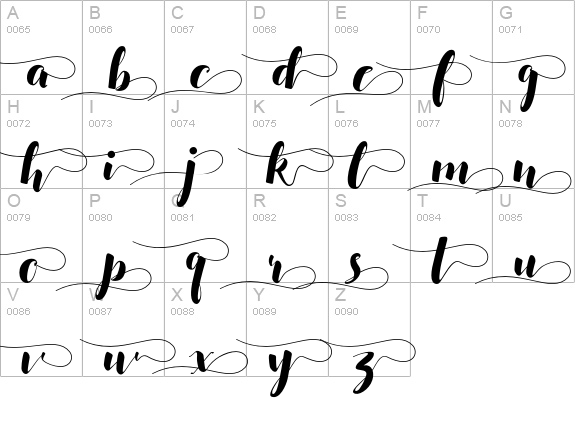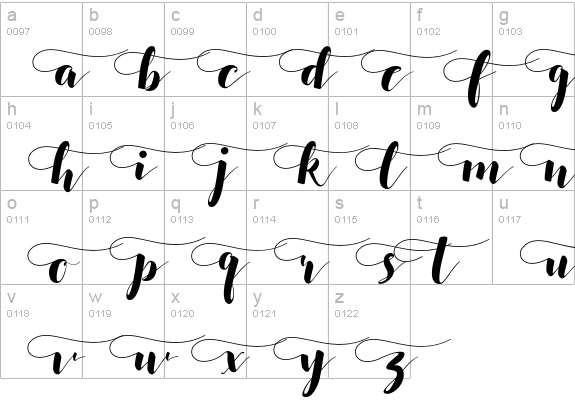
Salsabilla Swash Font Details
Salsabilla Swash font is a stunning and elegant typeface that exudes sophistication and charm. With its unique swash details and graceful curves, this font is perfect for adding a touch of class to any project. Whether you're designing invitations, branding materials, or greeting cards, Salsabilla Swash will elevate your design to the next level. What's even better is that Salsabilla Swash font is completely free to download at FontsMarket.com. Yes, you read that right - you can access this beautiful font at no cost and use it in your personal and commercial projects without any restrictions. Don't miss out on this amazing opportunity to enhance your design work with Salsabilla Swash font. Download it today and let your creativity shine!